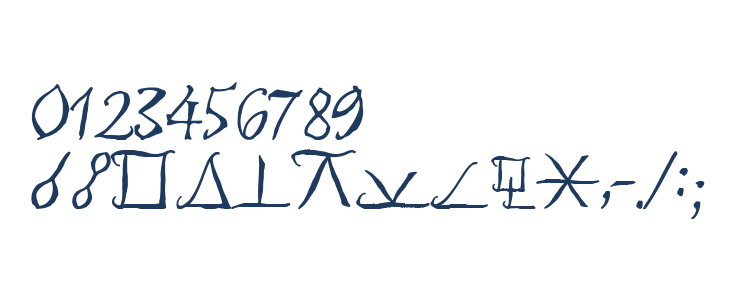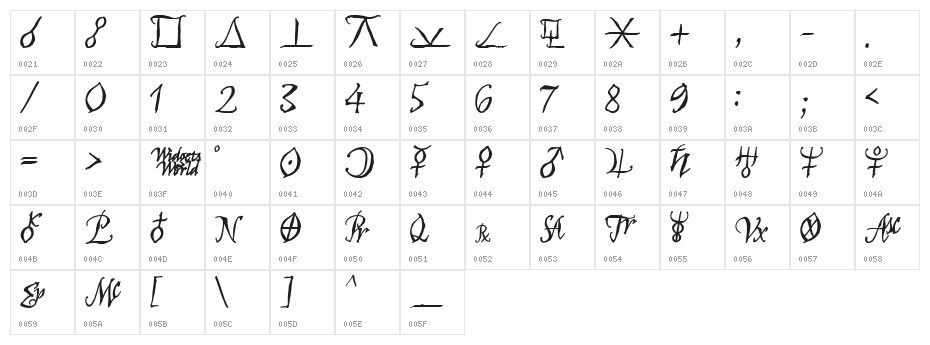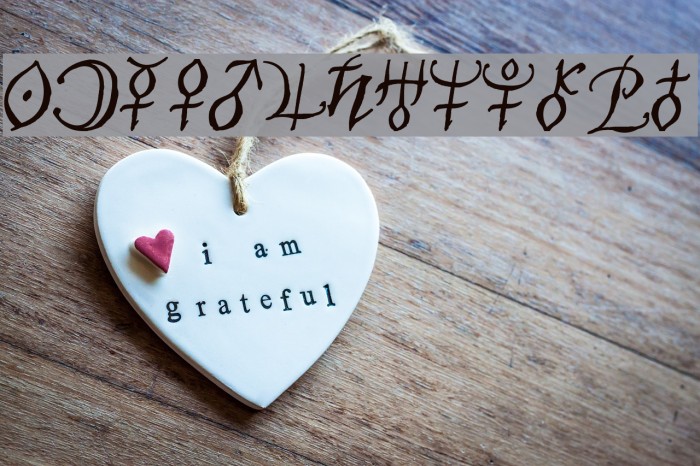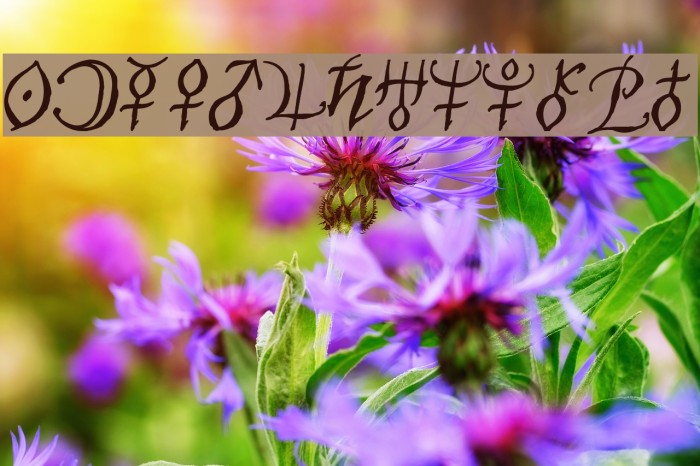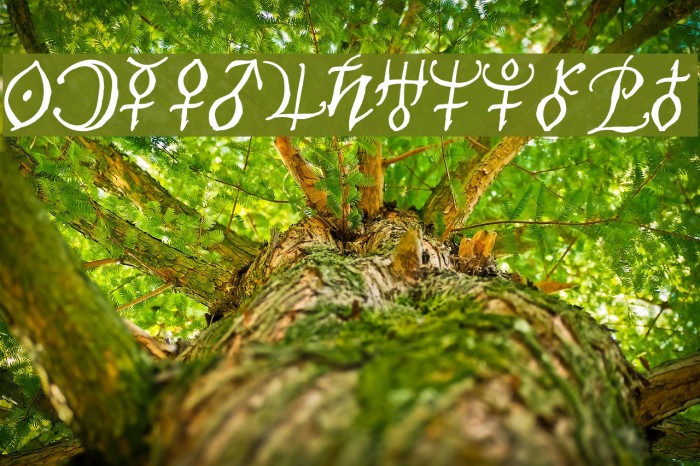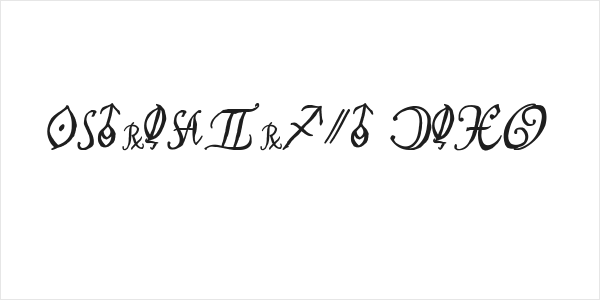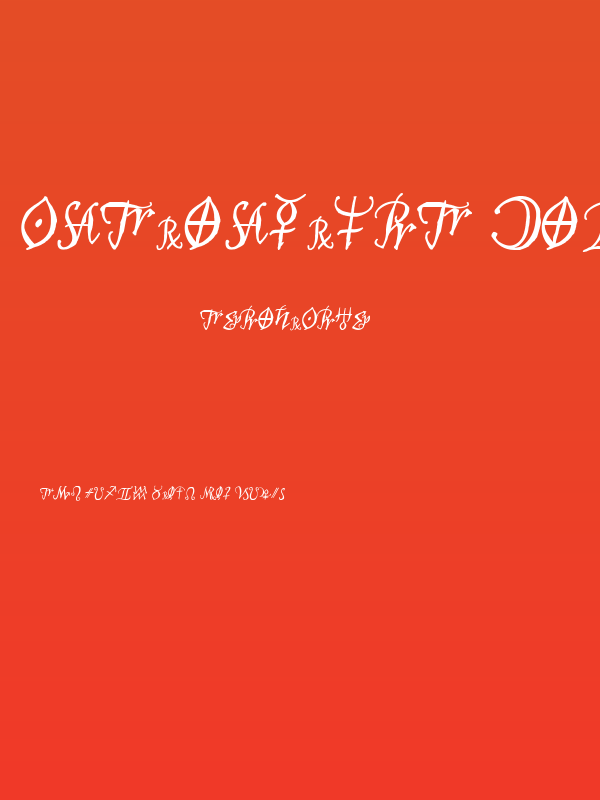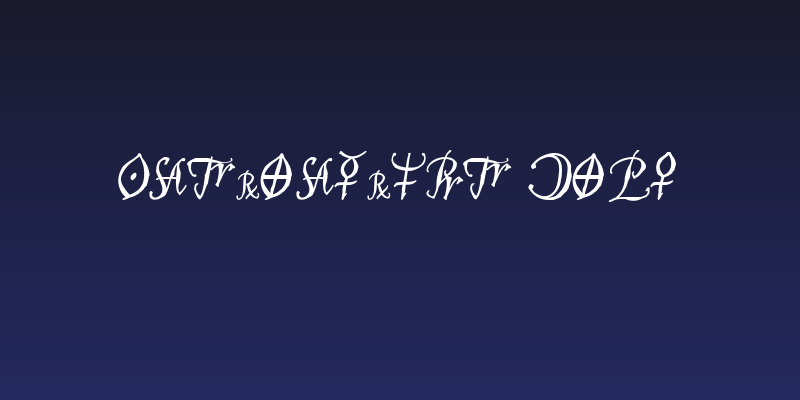
AstroScript Bold Font
AstroScript Bold Description
This font features a unique and mystical design, reminiscent of ancient scripts and astrological symbols. Each character is crafted with intricate curves and lines, creating a sense of mystery and otherworldliness. The letters are highly stylized, with an emphasis on flowing, interconnected strokes that suggest a handwritten quality. The numbers and special characters follow the same theme, incorporating celestial motifs and abstract shapes. This font is perfect for projects that require an enigmatic and magical touch, such as fantasy book covers, tarot card designs, or themed event invitations.
| Overall Style | Mystical, Enigmatic, Astrological |
| Proposed Projects | Fantasy book covers, tarot card designs, themed event invitations. |